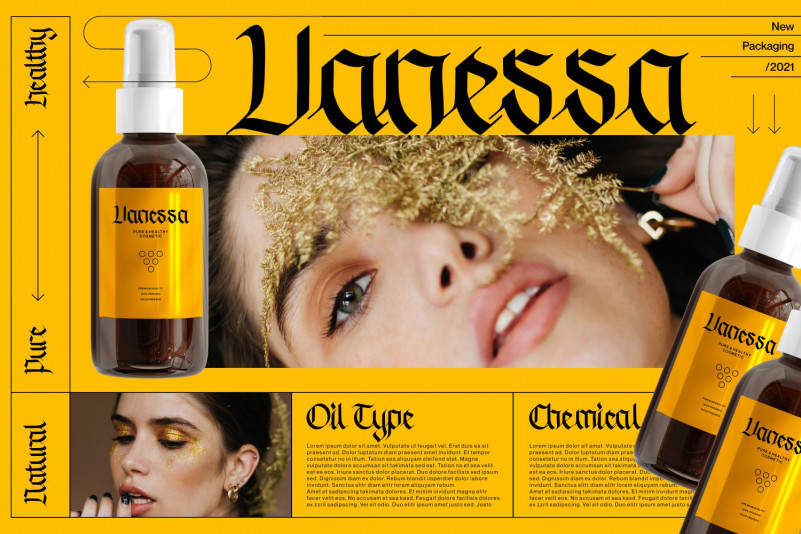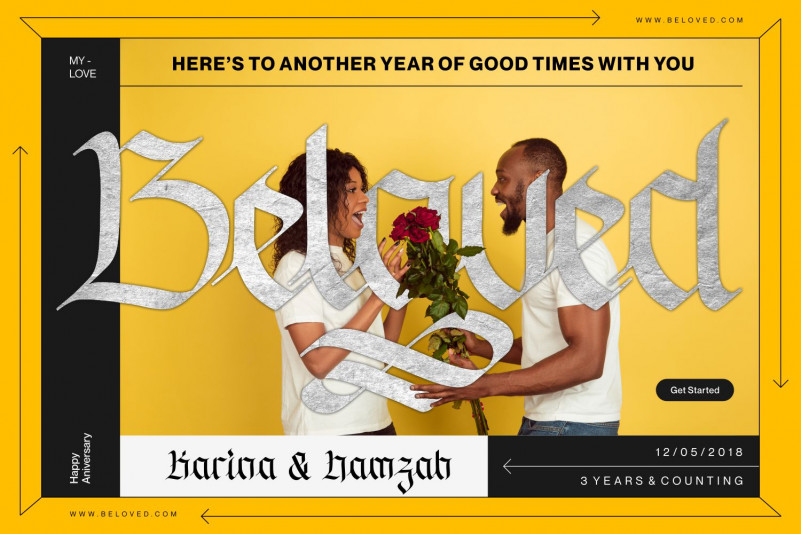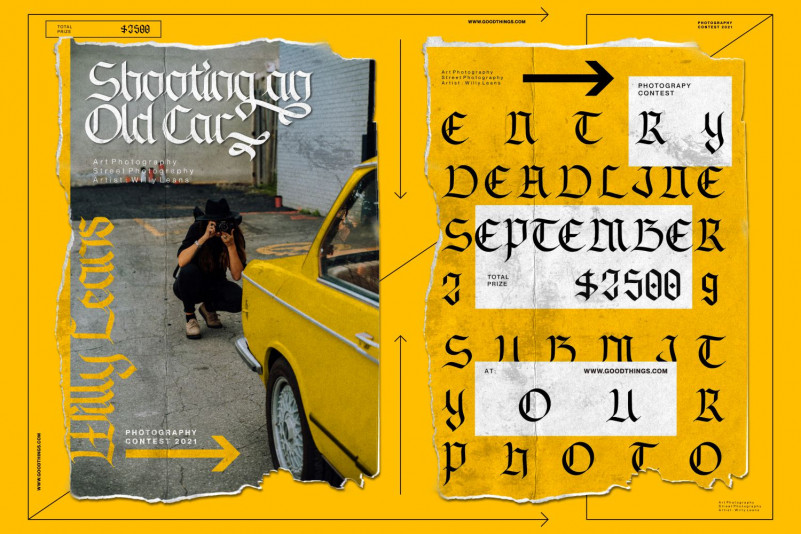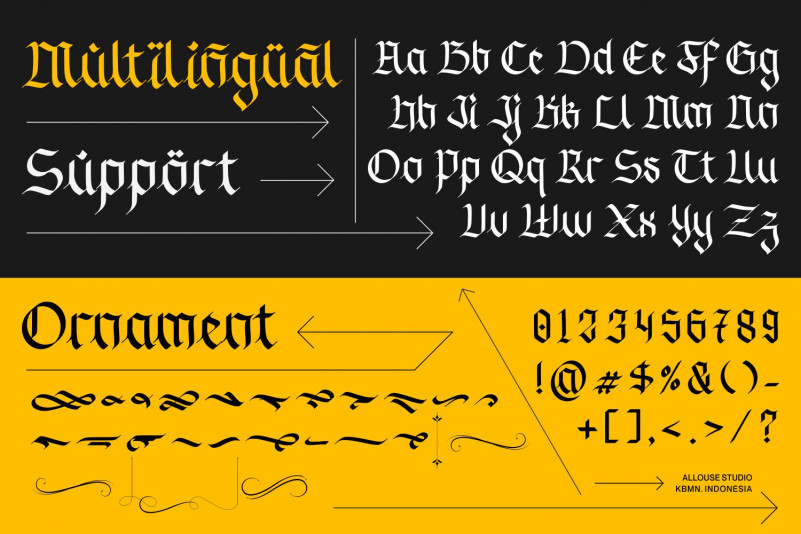
Ganghoods Font
Ganghoods Display Font
This is a cool, assertive and distinct blackletter font. Expertly designed to make your creation look out of this world, this font will look gorgeous on a variety of ideas.